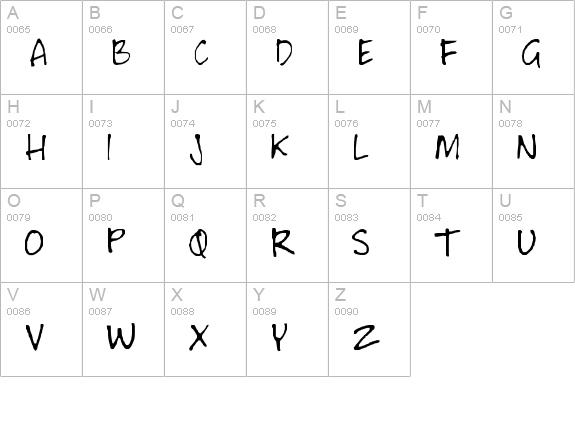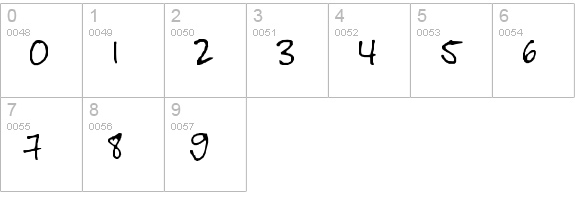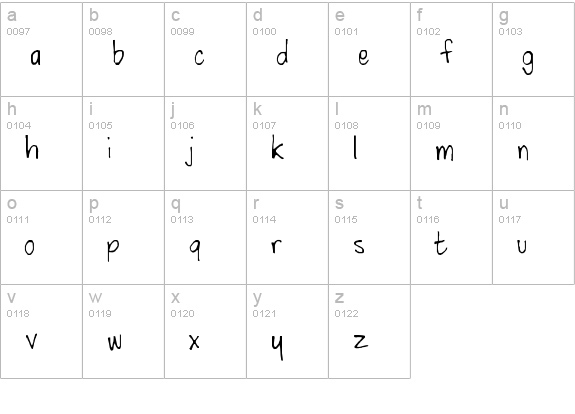
Watertank Font Details
Introducing Watertank, a unique and captivating font that will make your designs stand out from the crowd. Inspired by the fluidity and purity of water, this font exudes a refreshing and tranquil vibe. Its smooth and curvaceous letterforms flow effortlessly, creating a sense of harmony and balance. Watertank is not only visually pleasing, but also highly versatile. Whether you're designing a logo, poster, website, or any other creative project, this font will effortlessly adapt to your needs. Its clean and modern aesthetic makes it suitable for a wide range of applications, from sleek and professional designs to more whimsical and artistic endeavors. One of the best aspects of Watertank is that it is absolutely free! Yes, you read that right. This stunning font is freely available to download at FontsMarket.com. We believe that great design should be accessible to all, and by offering Watertank for free, we hope to inspire and empower designers everywhere. So why wait? Elevate your designs to new heights with Watertank. Download the font today and let your creativity flow like water. Embrace the freedom of expression and create designs that leave a lasting impression. With Watertank, the possibilities are endless.